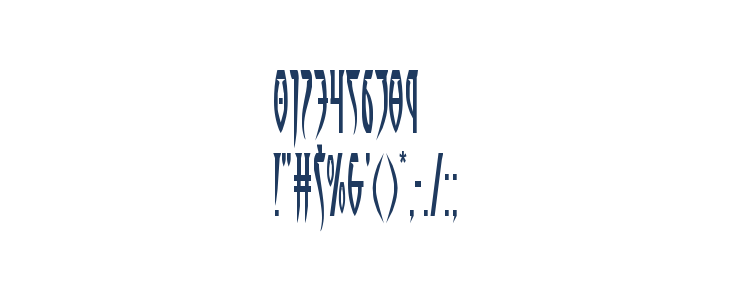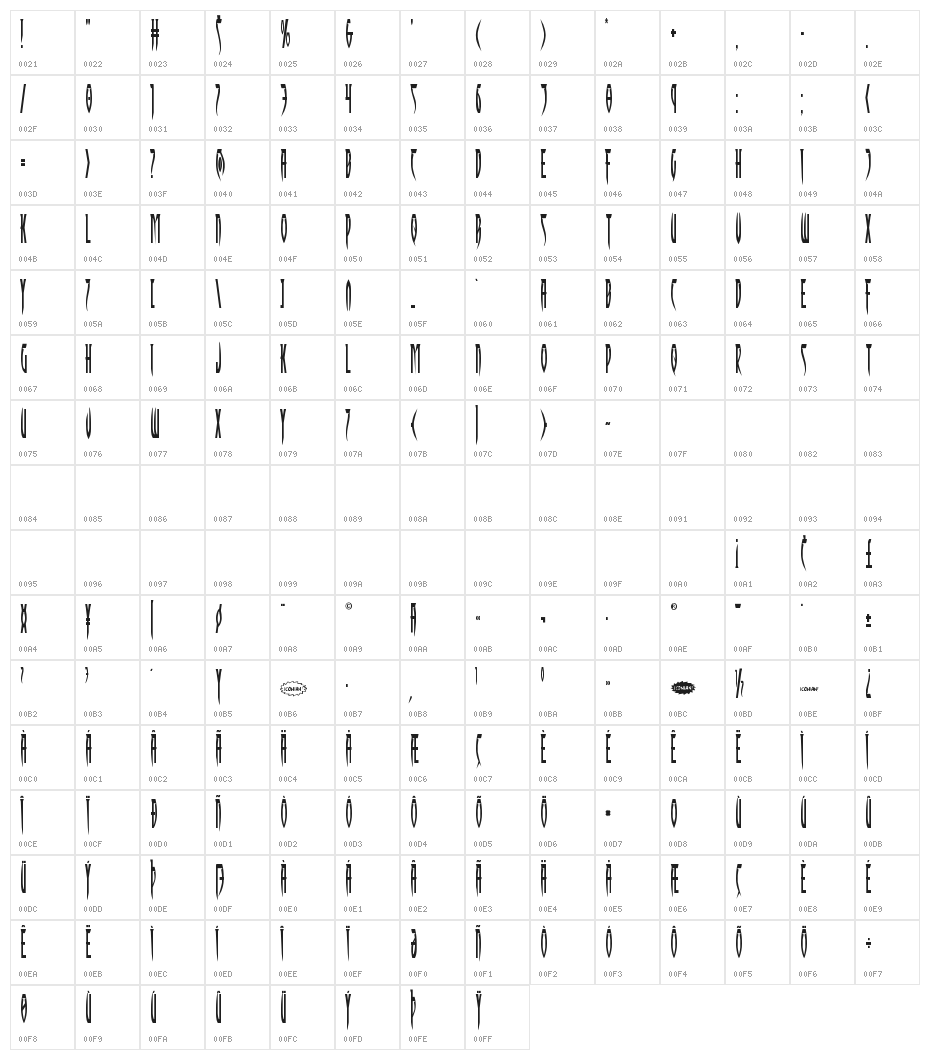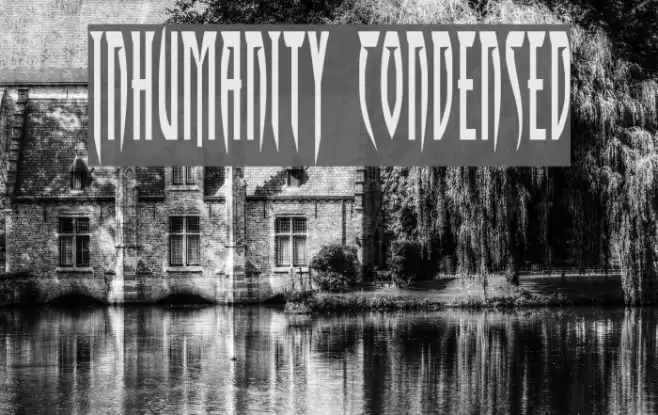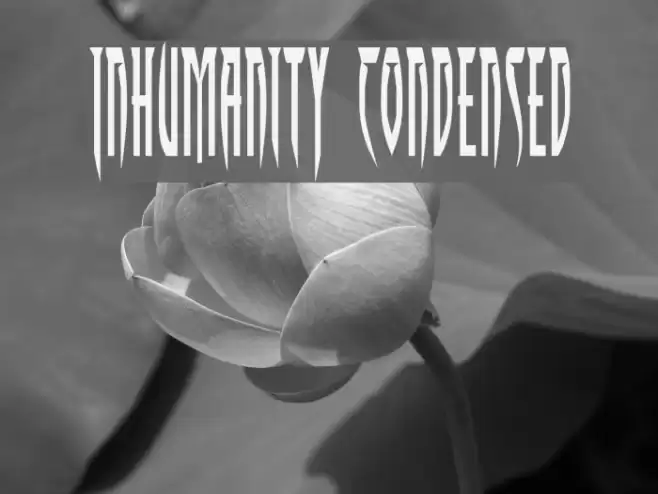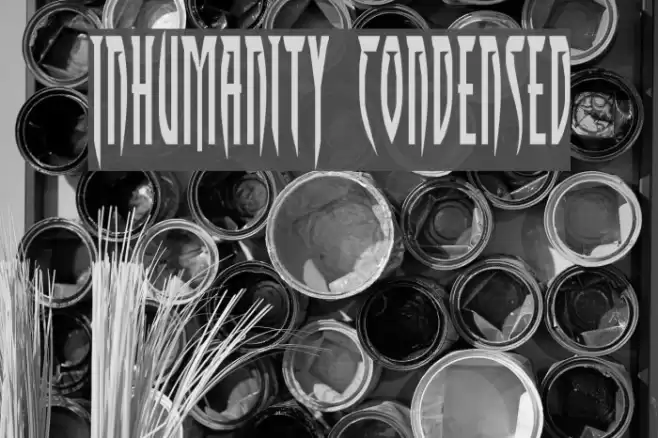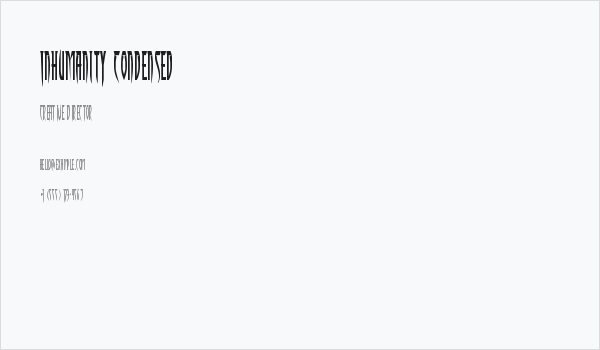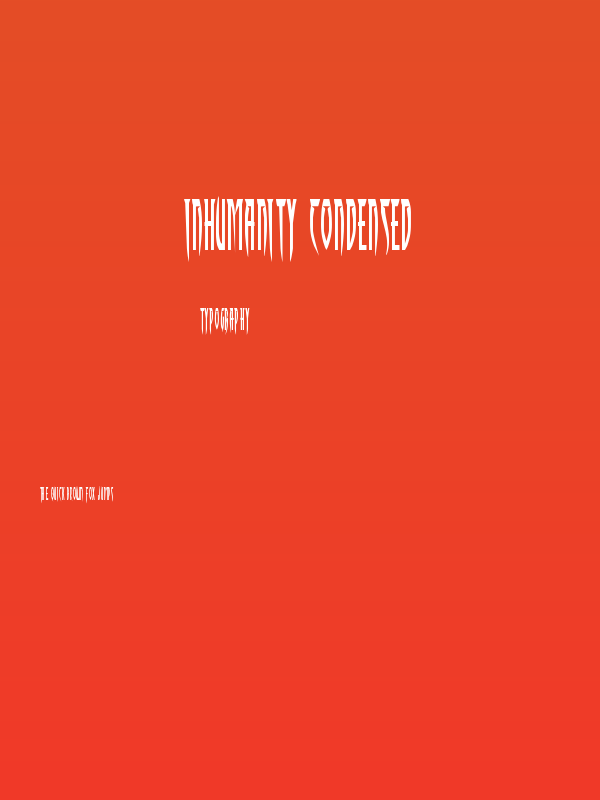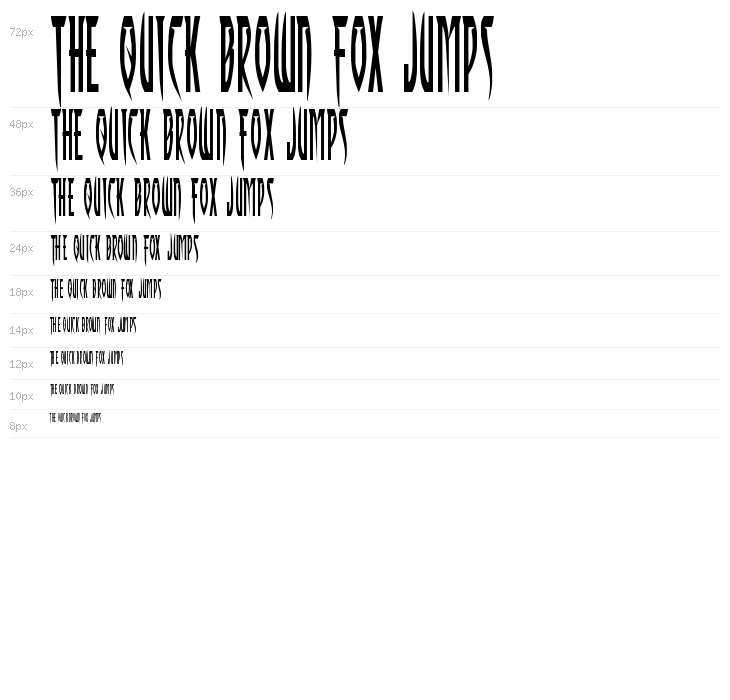
Inhumanity Condensed Font
Inhumanity Condensed Description
This font features a striking and bold design with elongated, narrow characters that create a dramatic and impactful appearance. The sharp angles and pointed edges give it a futuristic and edgy feel, making it ideal for attention-grabbing headlines or titles. The uppercase and lowercase letters maintain a consistent height, enhancing its condensed style. The numerals and special characters follow the same design principles, ensuring uniformity across all text elements. Its unique style is well-suited for projects that require a modern and unconventional look.
| Proposed Projects | Ideal for sci-fi movie posters, edgy branding, or modern graphic design projects. |